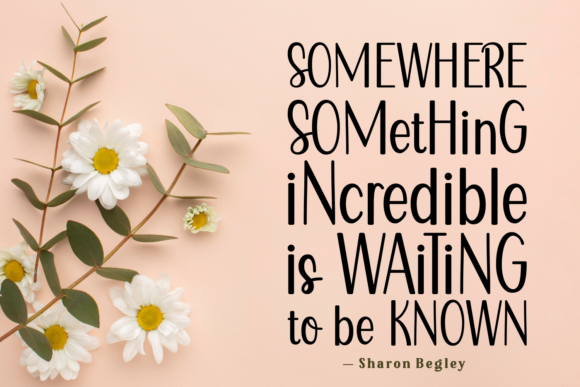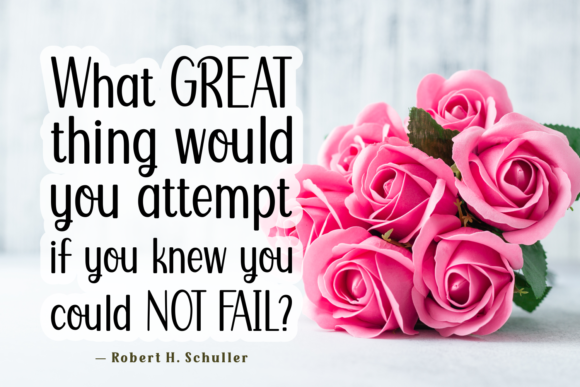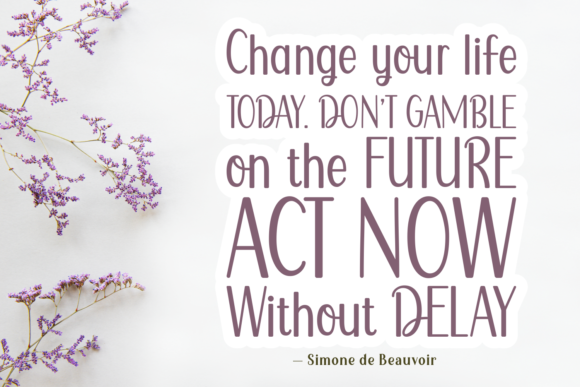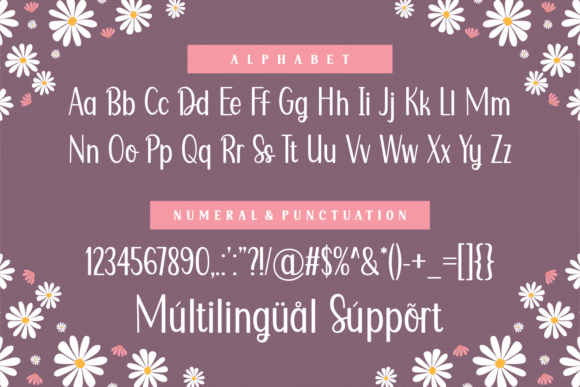
Introduction to Daisy Story Font
Daisy Story is a simple, delicate and well-balanced handwritten font.
This font was particularly crafted for those who need a beautiful and refreshing look to their designs .
Key Features of Daisy Story Font